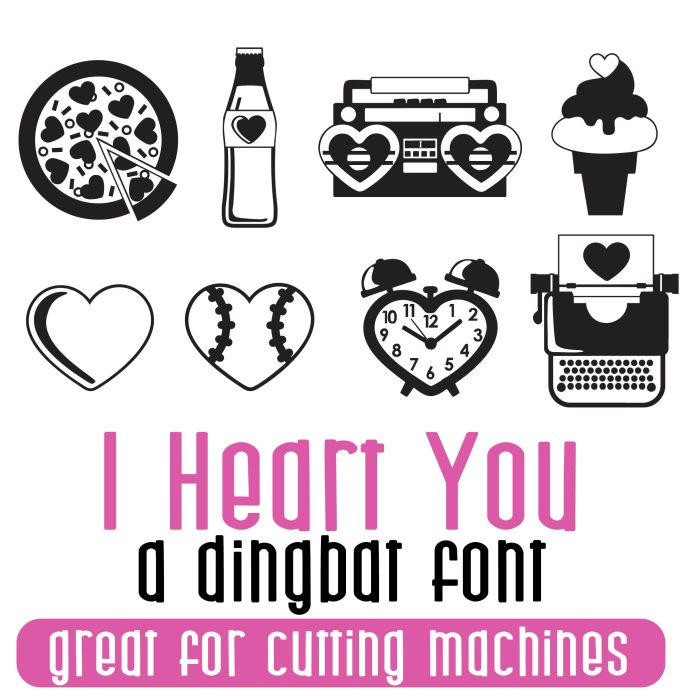
This doodlebat font features 52 heart items and coordinating puns! Perfect for Valentines classrooms, teachers, gifts, decor, scrap book pages, planner stickers and more! Glyphs are A-Z and a-z(puns).